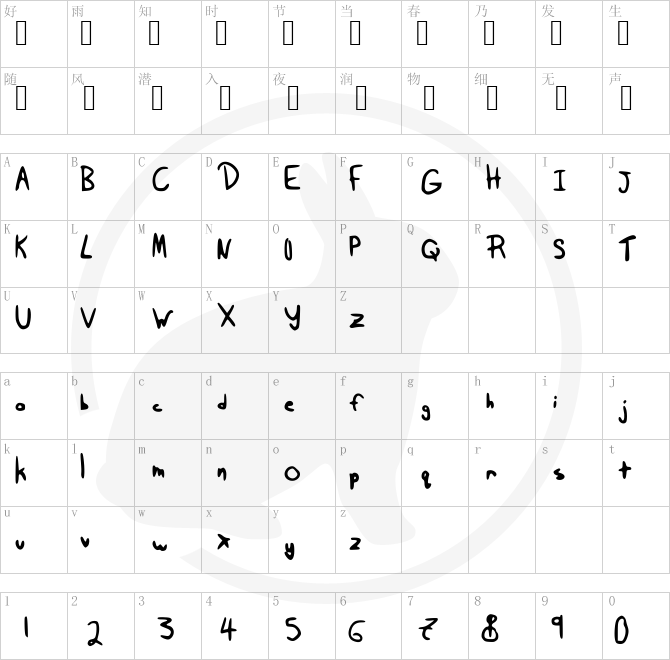
- Font Name:Taira K.'s messynezz
Taira-Ks-messynezz.ttf is a very beautiful artistic font, Taira-Ks-messynezz.ttf is widely used in the design and printing of various books and pictures,Taira-Ks-messynezz.ttf has a strong visual impact,Taira-Ks-messynezz.ttf is a commonly used font in newspapers, magazines and books, and is used in posters, e-commerce Poster design, store design, logo design, font design and other fields.Taira-Ks-messynezz.